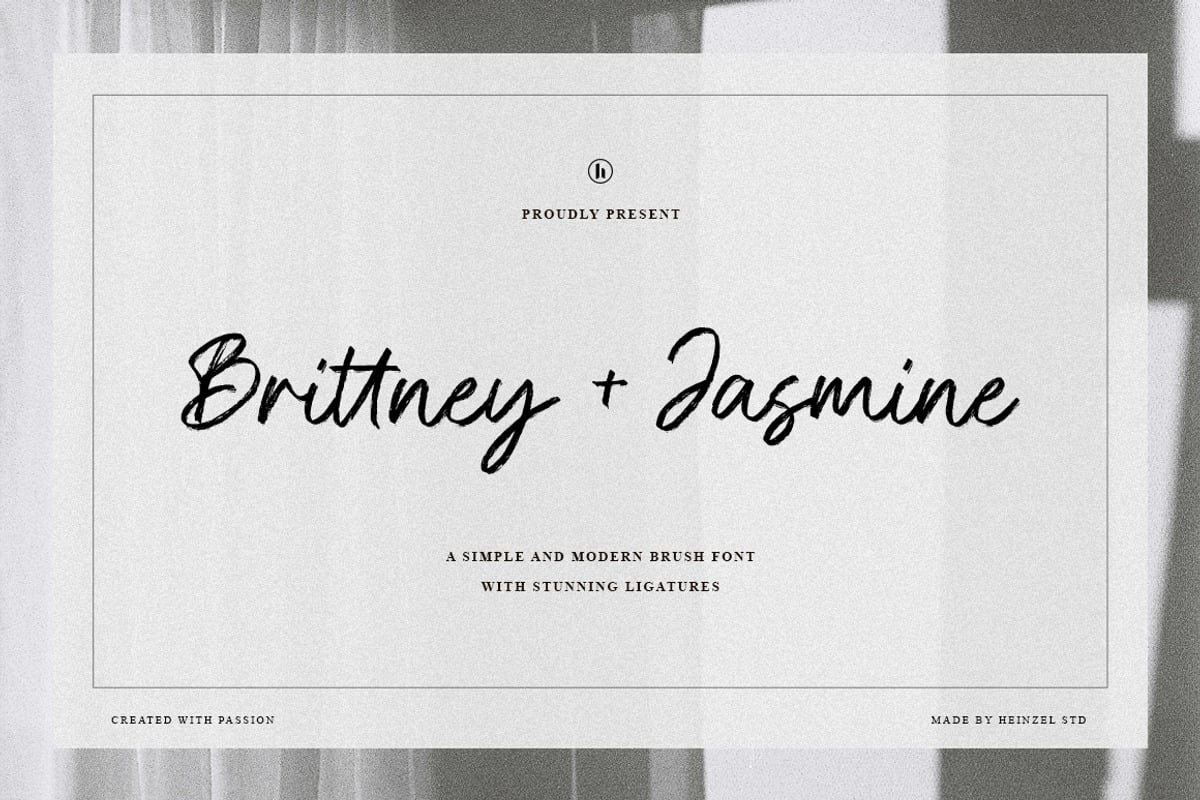
Brittney & Jasmine Brush Script Font
Bold brush strokes meet effortless elegance — meet Brittney & Jasmine, the modern script font built for standout design.
Brittney & Jasmine is a contemporary brush script typeface that blends confident, dynamic strokes with a natural hand-lettered feel. Its fluid letterforms and authentic brush texture give any design instant personality and charm, making your words feel crafted rather than typed.
Whether you're designing a brand identity, wedding invitation, logo, or social media graphic, this typeface delivers a stylish, modern aesthetic that works across a wide range of creative projects.
- Uppercase and lowercase characters
- Numerals and punctuation
- Stunning ligatures
- Multilingual language support